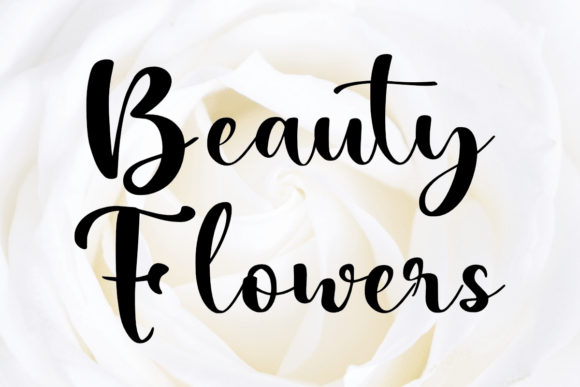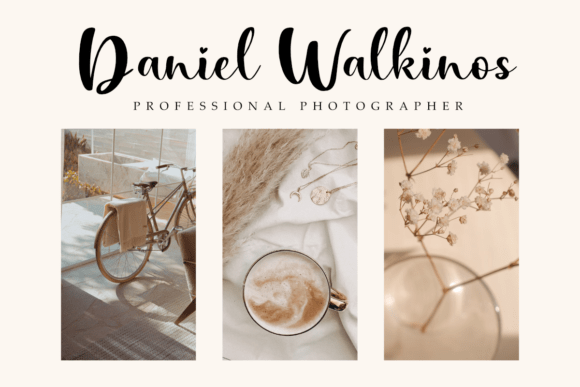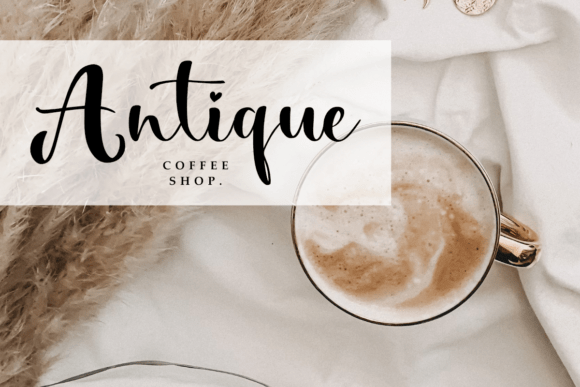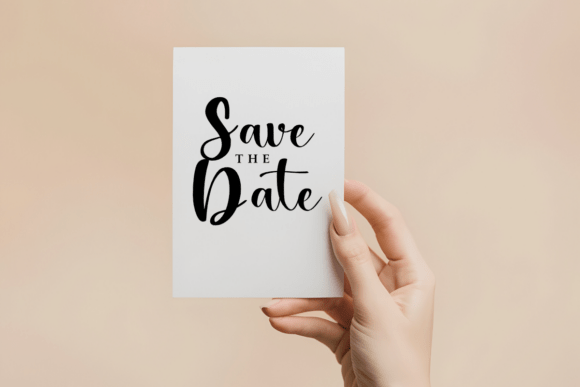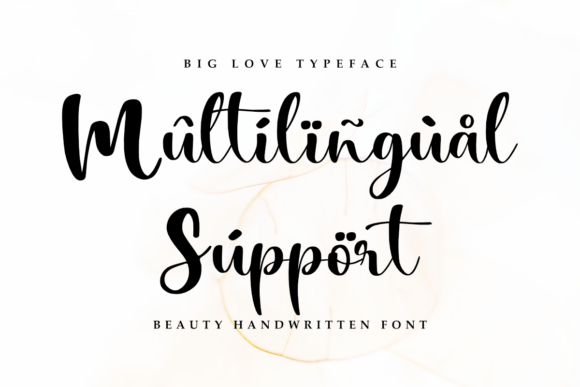
When Words Speak Louder Than Any Wedding Bouquet
Have you ever been sitting at your desk, staring at a blank sheet of paper, and suddenly a spark of creativity hits you? Maybe it’s the idea for a wedding invitation, or a logo for a new business. Whatever it is, you know it’s going to be special, and you want to make it stand out. That’s where the perfect font comes in – a font that’s as beautiful as it is unique.
Enter Big Love Font, a stunning handwritten script font inspired by the elegance of wedding invitation typography. This gorgeous font is perfect for designers looking to add a touch of sophistication and whimsy to their projects. With its natural, flowing style, Big Love Font is a versatile choice for everything from wedding invitations to logos, branding, and more.
Big Love Font Key Features
- Unique Characteristics: This font features a unique, handwritten style with bold and expressive lines, adding a touch of personality to any design.
Designer Review: Big Love Font
I recently had the chance to work with the Big Love Font, and I’m here to share my honest thoughts. Overall, I found it to be a unique and eye-catching font that can add a lot of personality to a design.
- ✨ The Big Love Font has a clear and playful feel to it, making it perfect for projects that need a bit of whimsy.
- ✨ The font is highly customizable, allowing designers to adjust the spacing and kerning to suit their needs.
- ✨ The font includes a wide range of languages, making it a great choice for international projects.
- ⚠️ The font can be a bit difficult to read at smaller sizes, which may limit its use in certain contexts.
- ⚠️ The font’s unique style may not be suitable for all types of projects, such as formal or professional work.
Overall, I found the Big Love Font to be a fun and creative choice for designers looking to add some personality to their work. While it may have some limitations, I believe it can be a great addition to any design toolbox.
“Big Love Font” is commonly used for:
- Wedding invitations and decorations.
- Valentine’s Day